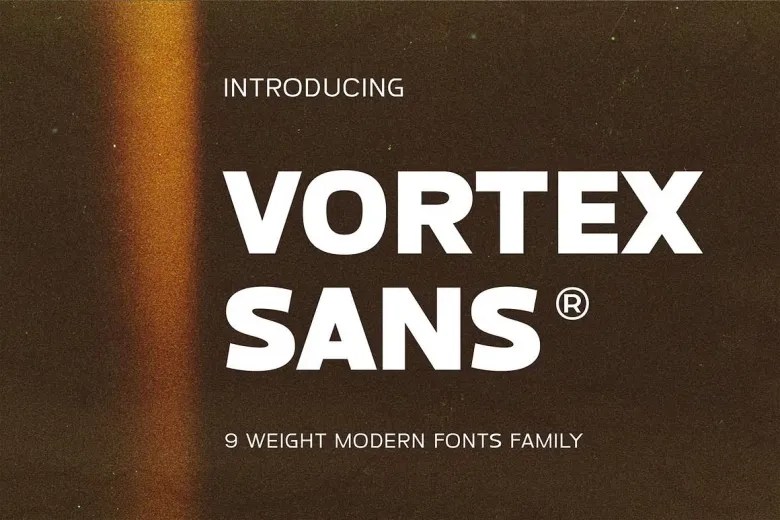
Vortex Sans Font
Embrace the retro vibe with Vortex Sans, an eye-catching font that brings the spirit of 70’s and 80’s design into the modern era. This distinctive retro font features additional Opentype alternative ligatures and optional ligatures, adding a lively and dynamic touch to your projects.
Whether you’re looking to evoke nostalgia or simply want a font that stands out, Vortex Sans delivers. For larger text, you can enhance its retro flair by widening the letter spacing, or keep it tight for a bold impact in smaller body text.